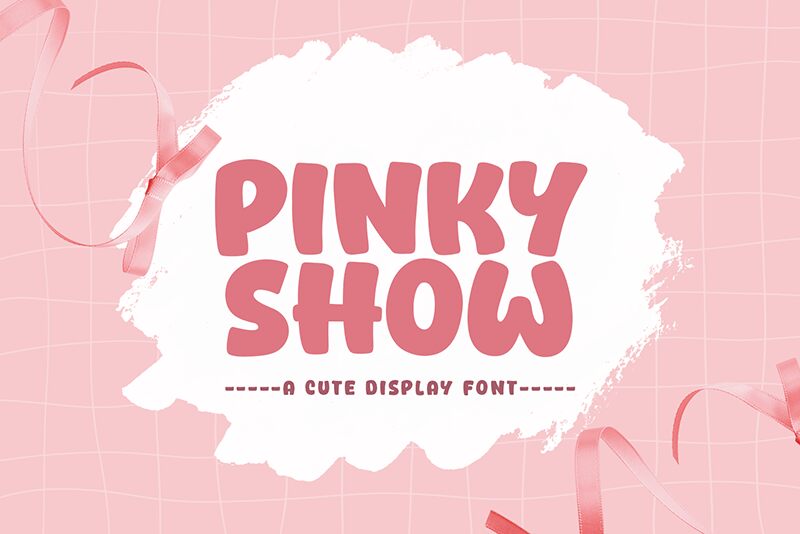
Pinky Show font, by Khurasan, is a bold cartoon-style typeface that draws inspiration from retro aesthetics. Expressing a chunky, rounded look with vintage flair and expressive energy, each character features exaggerated elements for an engaging reading experience. This free display font can inject meaning into modern projects with eye-catching letters and numbers.
Use Pinky Show for video games, online shops products, packaging designs (cans and labels), movie posters, children’s books covers or illustrations. It also suits educational platforms’ websites or applications as well as card games (UNO) themes where its readable typography adds visual interest that attracts kids easily yet maintains legibility in the long run!